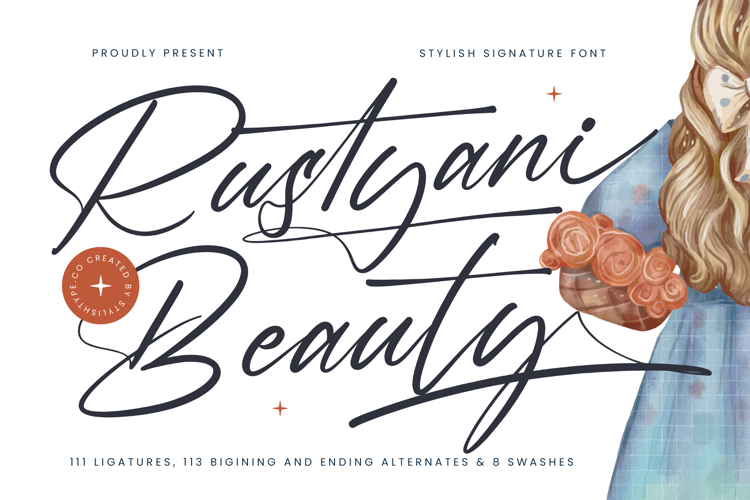
Rustyani Beauty - Stylish Signature Font
Rustyani Beauty is an elegant signature script font designed with smooth flowing strokes and refined handwritten curves. Inspired by modern calligraphy and natural handwriting styles, this font brings a stylish and graceful touch to any creative project.
The letterforms feature long sweeping lines, expressive ligatures, and elegant swashes that create a sophisticated and polished look. Its balanced structure makes it suitable for a wide range of design purposes while maintaining a beautiful handwritten aesthetic.
Rustyani Beauty works beautifully for branding, invitations, packaging, social media graphics, and signature-style logos. The smooth rhythm of the characters allows designers to create elegant typography compositions with ease.
With an extensive set of ligatures and alternate characters, this font provides many possibilities for creating distinctive lettering layouts. Decorative swashes add extra visual interest and help enhance headlines, titles, and branding elements.